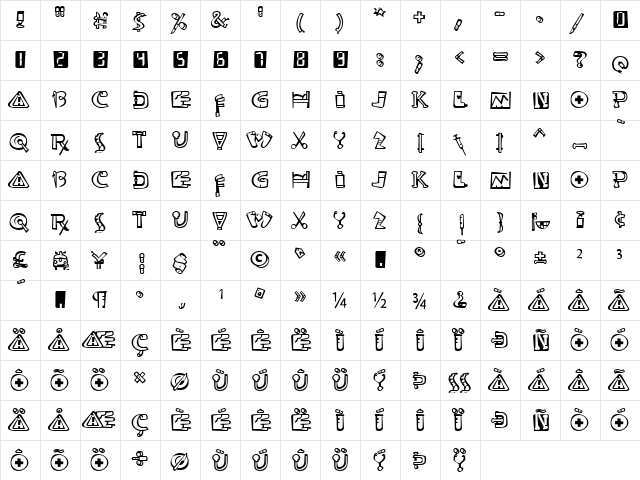
Medicals Regular
Design Context for Medicals Typeface
Medicals is a composed and adaptable typeface that performs quietly and consistently across a wide range of design contexts.